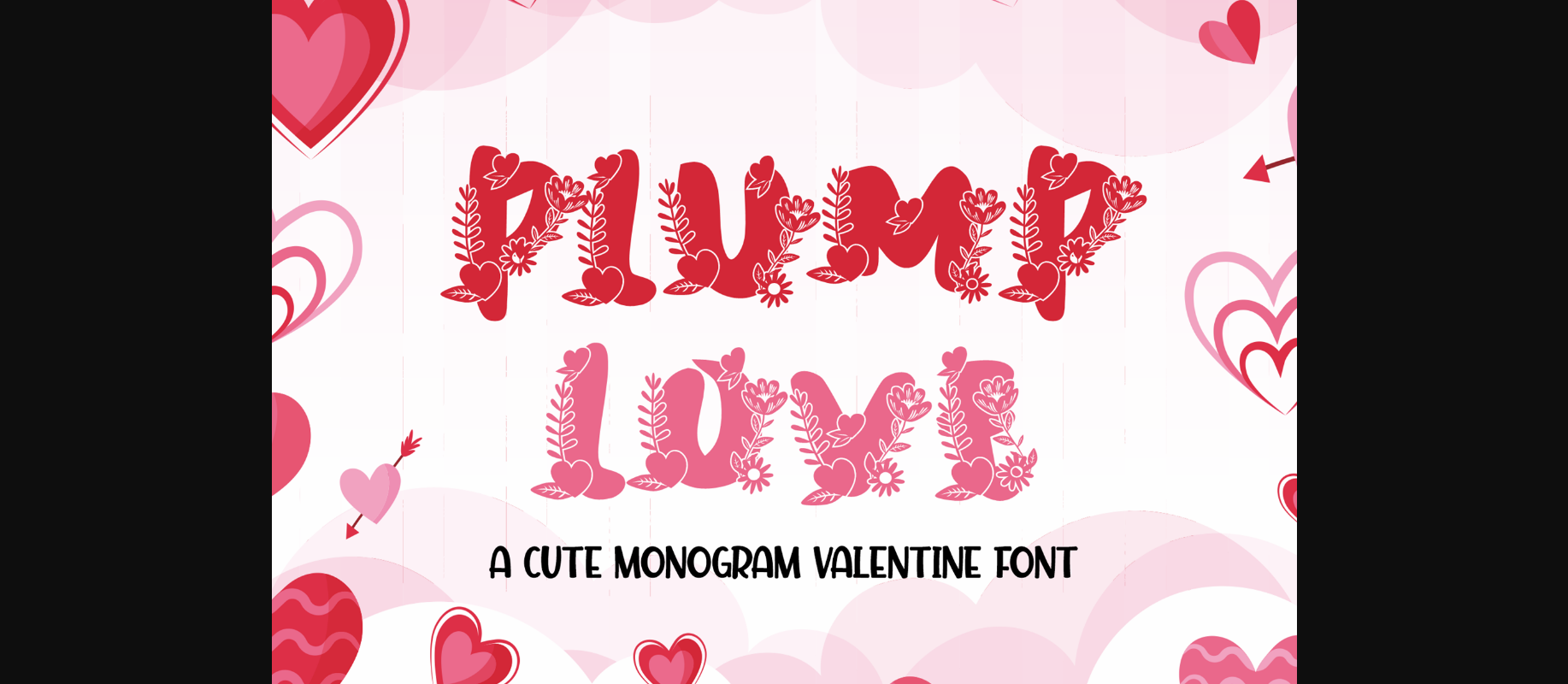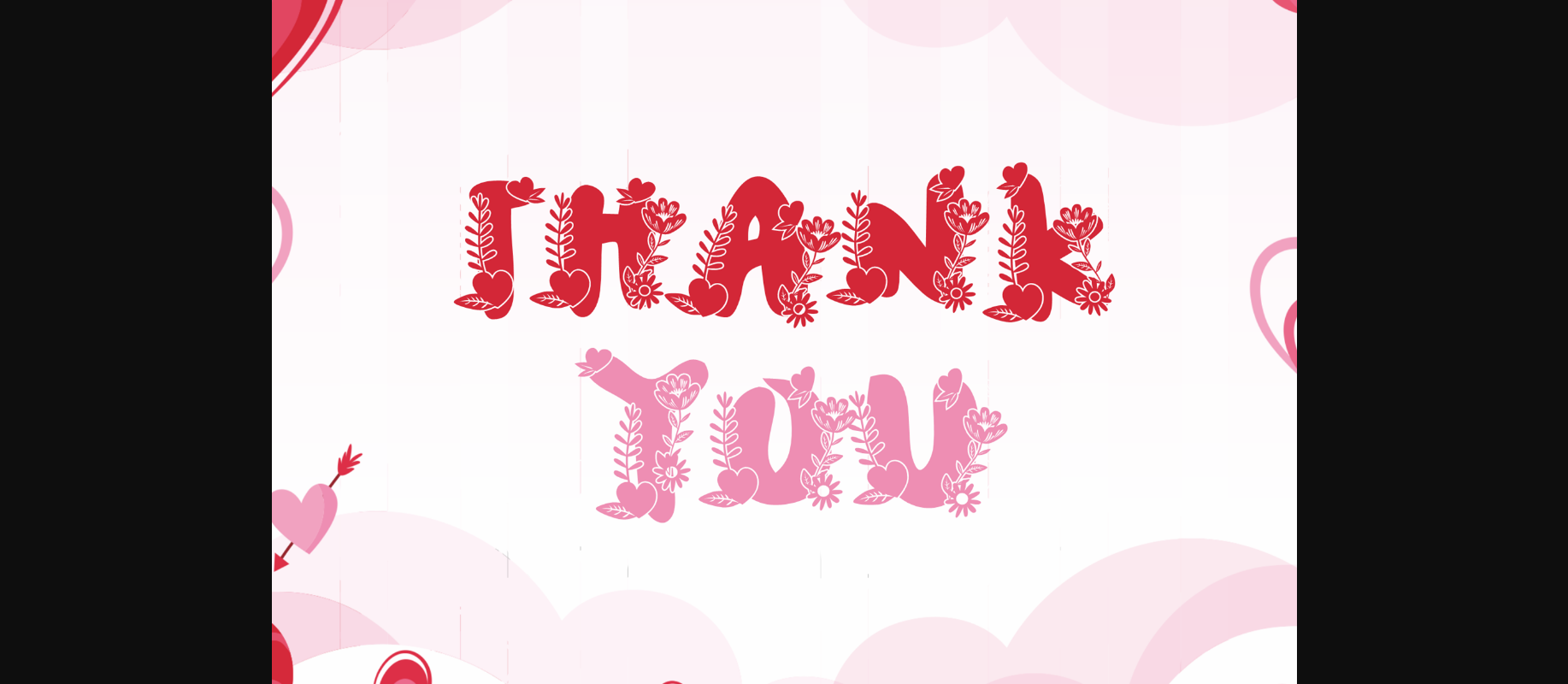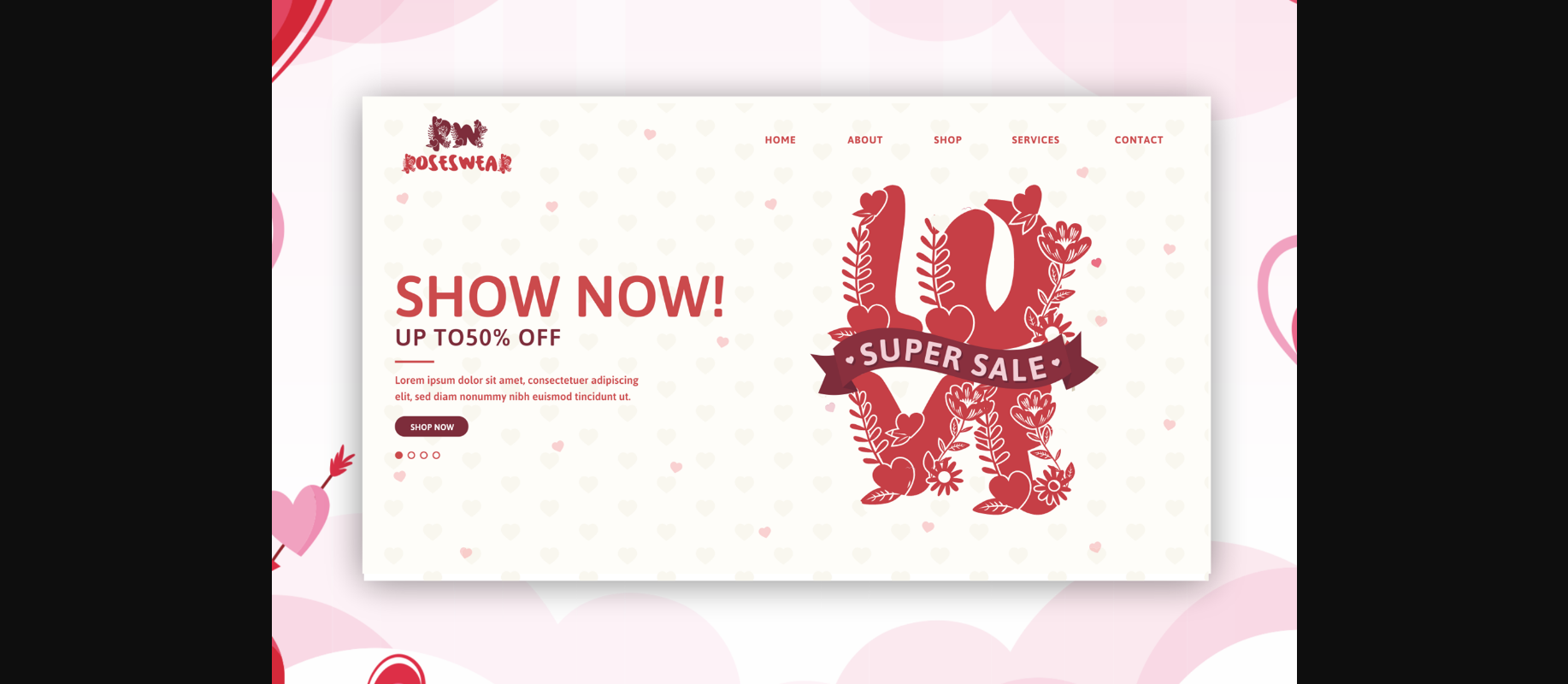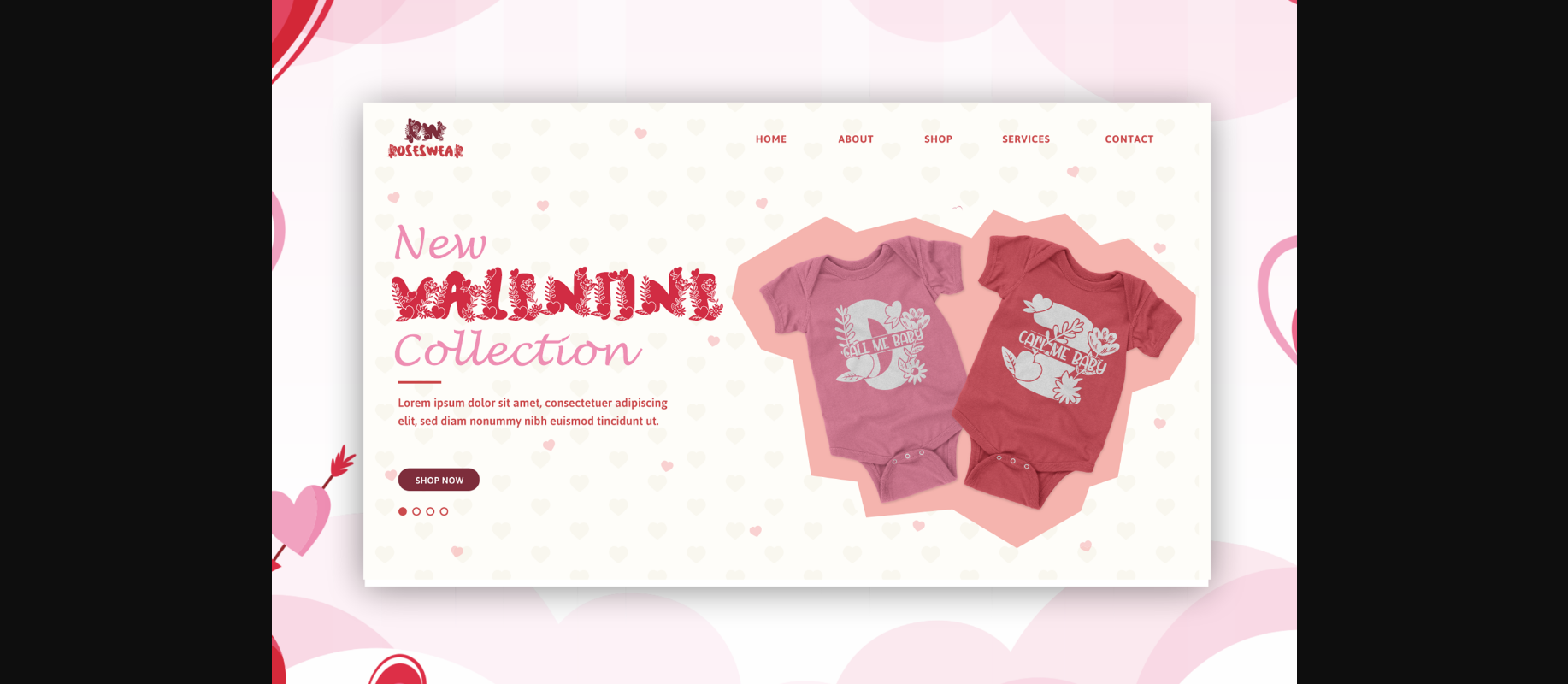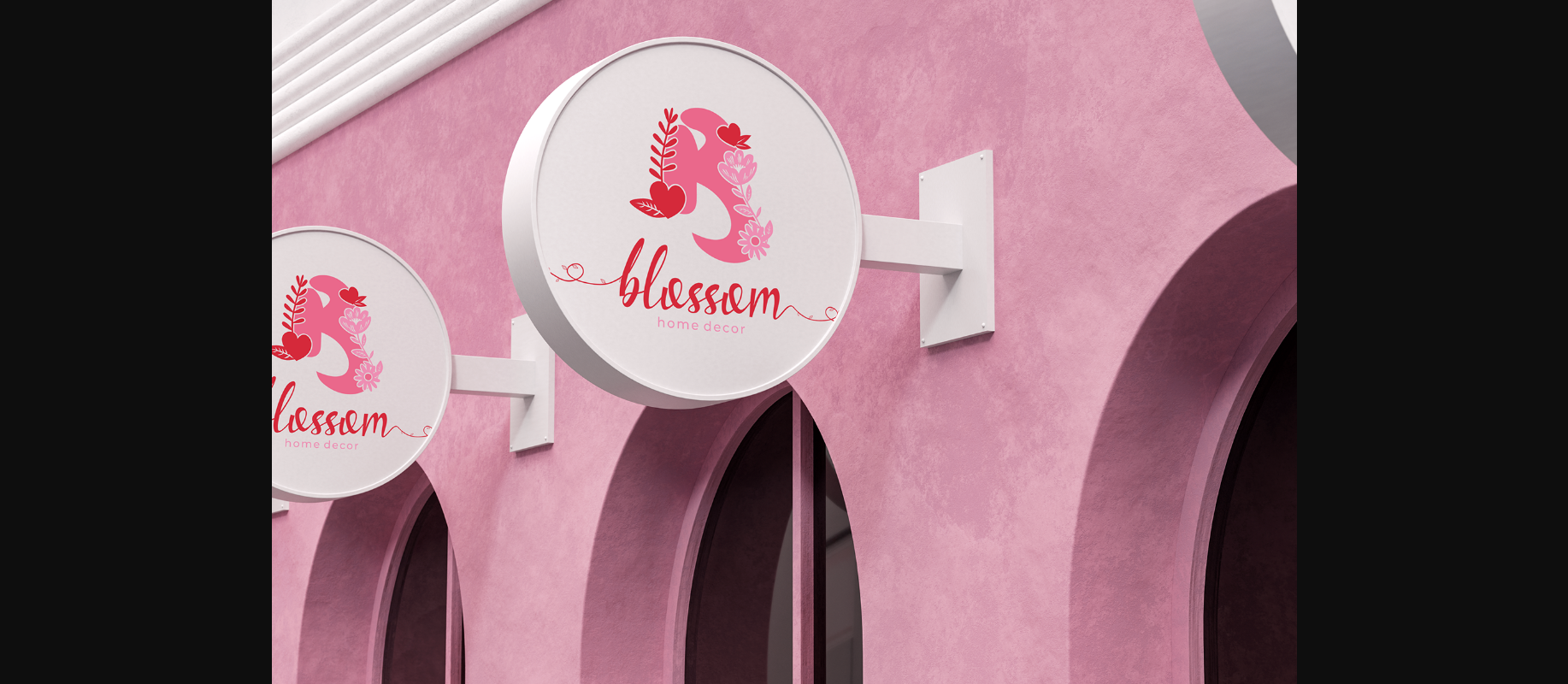
About Plump Love Font
Plump Love is a sweet decorative font adorned with flowers and love decorations within each character. This font is ideal for Valentine-themed projects, adding a touch of romance and charm. The inclusion of floral and love-inspired elements enhances its suitability for designs associated with love, weddings, or any project aiming to convey a romantic atmosphere.